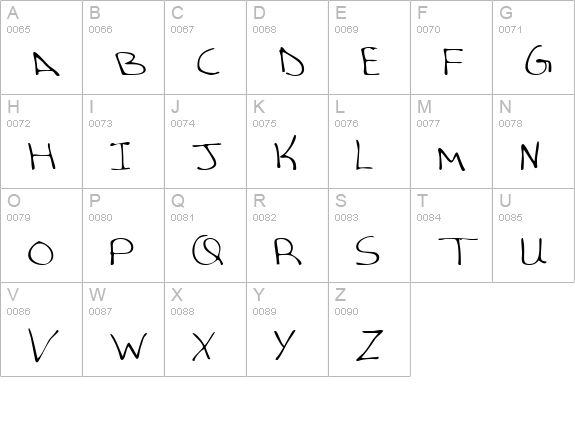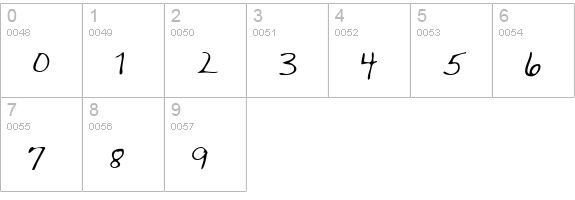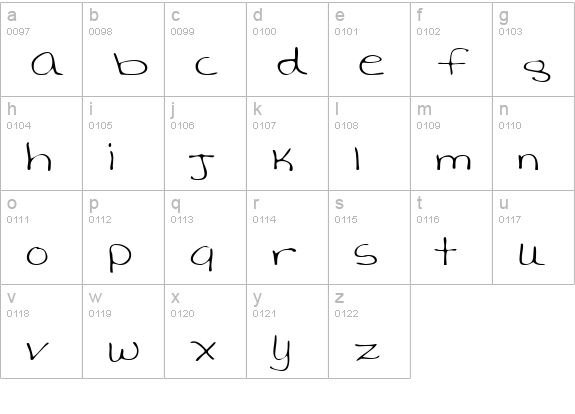
AverysHand Font Details
AverysHand font is a charming and elegant script typeface that exudes a sense of sophistication and grace. Its flowing lines and delicate curves make it perfect for adding a touch of beauty to any design project. This font is ideal for wedding invitations, branding materials, or any other project that calls for a touch of elegance. What sets AverysHand font apart is not only its exquisite design but also the fact that it is completely free to download. Yes, you read that right - this stunning font is freely available to download at FontsMarket.com. So go ahead and add a touch of elegance to your next project with AverysHand font - you won't be disappointed!